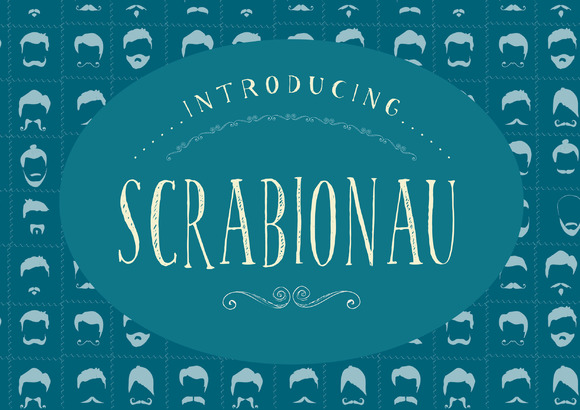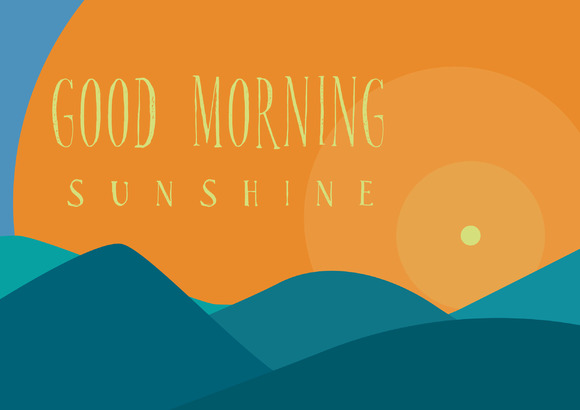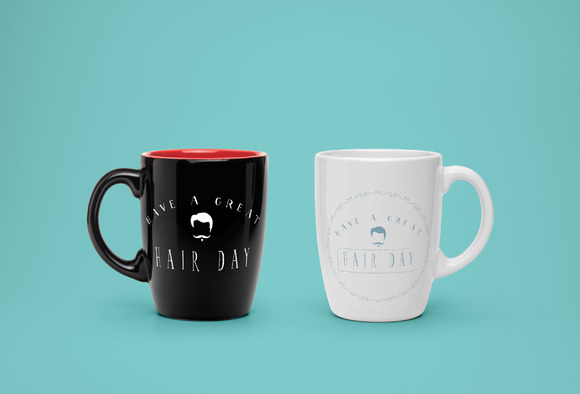
Introduction to Scrabionau Font
Have you ever been working on a creative project, pouring your heart and soul into it, only to realize that the perfect font is missing? That’s exactly what happened to me, and that’s how I stumbled upon the charming Scrabionau Font. This beautiful, hand-written font has a unique character that brings a touch of warmth and personality to any design.
What sets Scrabionau Font apart is its imperfect flow, which gives it a natural, handwritten feel. Whether you’re working on a design project or creating a digital art piece, this font is sure to add a unique touch. With its transparent background, it’s perfect for designers who want to create high-quality designs with a personal touch.
Key Features of Scrabionau Font
- Transparent background, making it easy to overlay on any image or design without compromising its clarity.
- Includes a range of font sizes, from 12pt to 72pt, catering to different design requirements and creative needs.
- Resolution-independent, ensuring that the font remains crisp and clear at any resolution, from low to high DPI.
- Designed with versatility in mind, making it suitable for a wide range of creative projects, from logos to typography-heavy designs.
Honest Review: Scrabionau Font
As a designer, I’m always on the lookout for high-quality design resources that can elevate my creative projects. Recently, I had the chance to work with the Scrabionau Font, and I’m excited to share my honest review.
The Scrabionau Font is a free download that boasts a unique and eye-catching design. What works well is its versatility – it can be used for a wide range of creative projects, from logos to typography-based designs.
Here are some of the key features that I appreciate:
- High-quality design that’s perfect for creating a professional look
- Transparent background, making it easy to customize and combine with other design elements
However, I do have a few limitations to note: ⚠️ the font may not be suitable for all design projects, and it’s not as comprehensive as some of the more expensive fonts on the market.
Overall, I’m impressed with the Scrabionau Font and would definitely recommend it to fellow designers looking for a high-quality, free design resource. It’s perfect for adding a touch of creativity to your next project! ✨
Tips for Getting the Most Out of Scrabionau Font
Scrabionau Font is perfect for creative projects, such as logos, business cards, and brochures. It’s also great for design projects that require a unique and eye-catching font, such as posters, flyers, and social media graphics.
Q: What is the recommended usage for the Scrabionau Font?
The Scrabionau Font is suitable for a wide range of creative projects, including graphic design, web design, print design, and more. It’s perfect for designers who want to add a touch of elegance and sophistication to their high-quality design projects. However, please note that the font is not recommended for use in situations where a high level of readability is required, such as in body text or small font sizes.